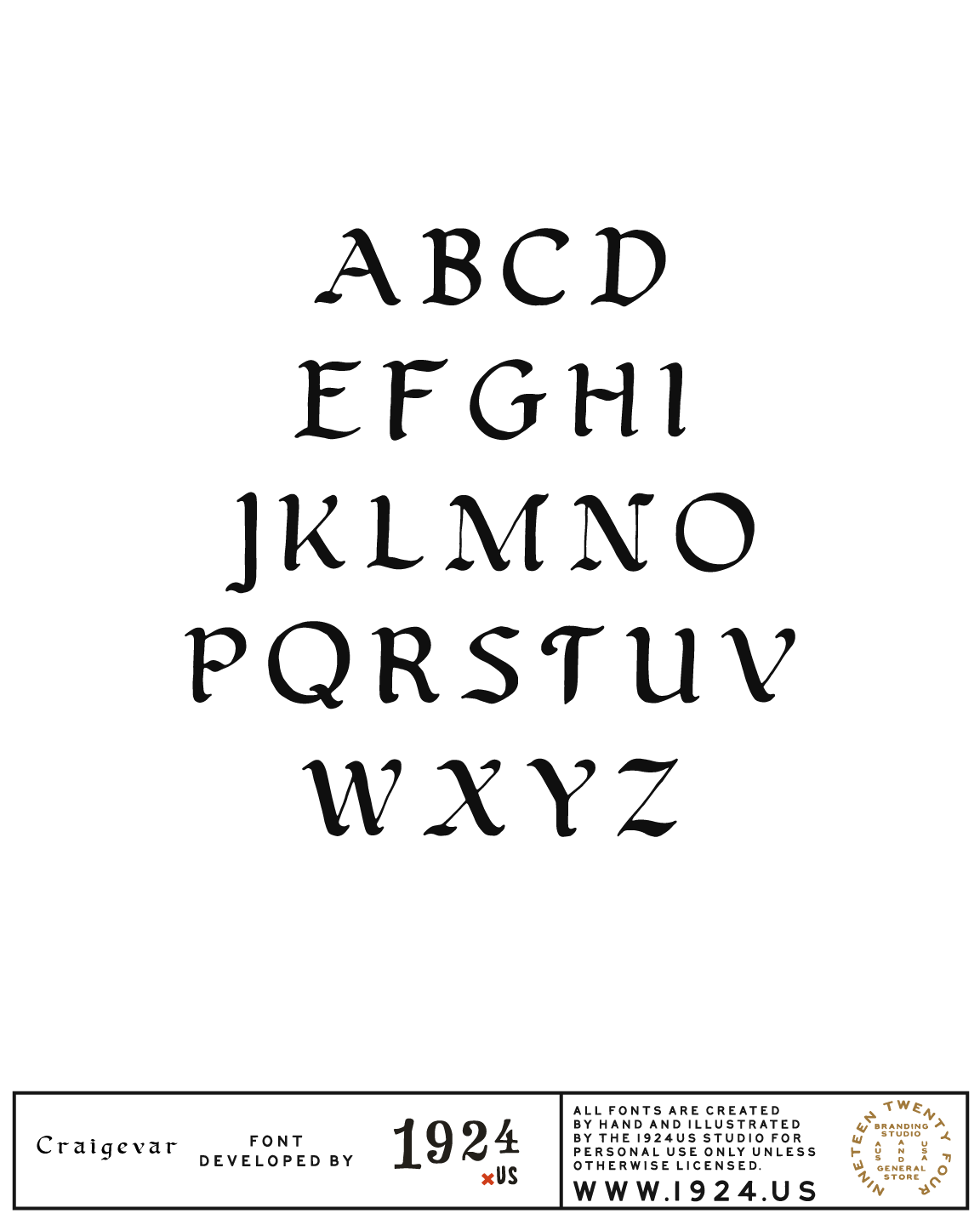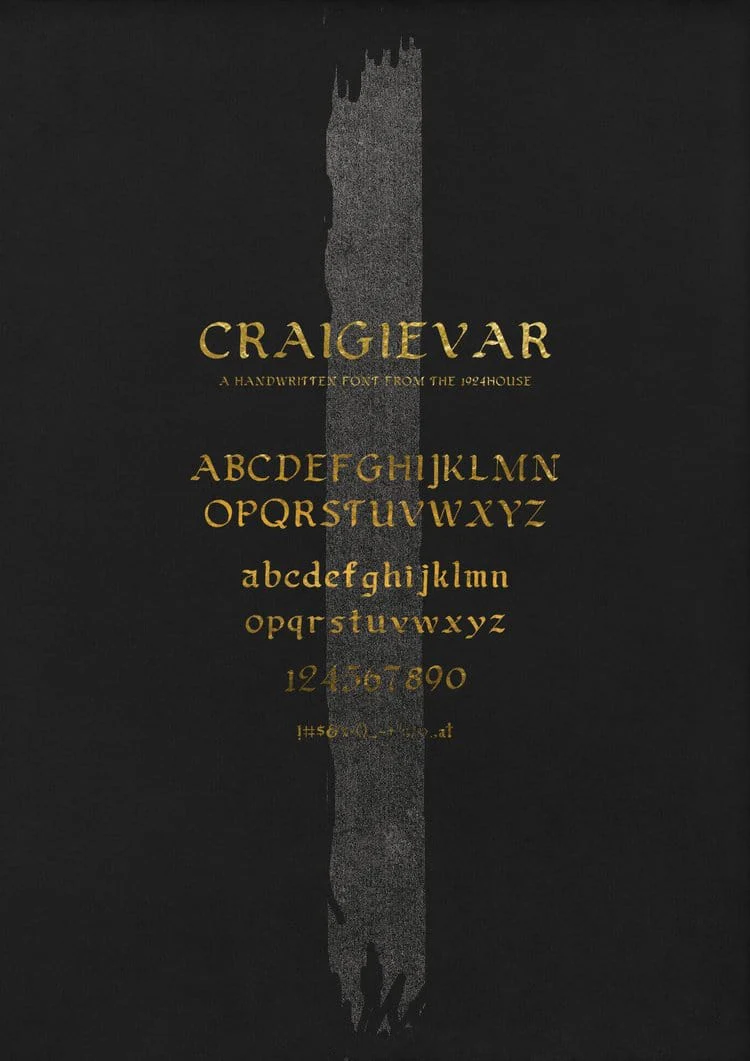
Craigievar Font by 1924us
Our third and instantly unique font is inspired by the Craigievar castle in Scotland. The place which has significant historic provenance, profoundly inspired both Elle and myself, and we decided that some parts of the castle needed to be shared with the rest of the world. While the font itself is not apparent in the castle, it is a hand-drawn rendition of the older calligraphic style so often found throughout the era of that time and well into the late 1800s.